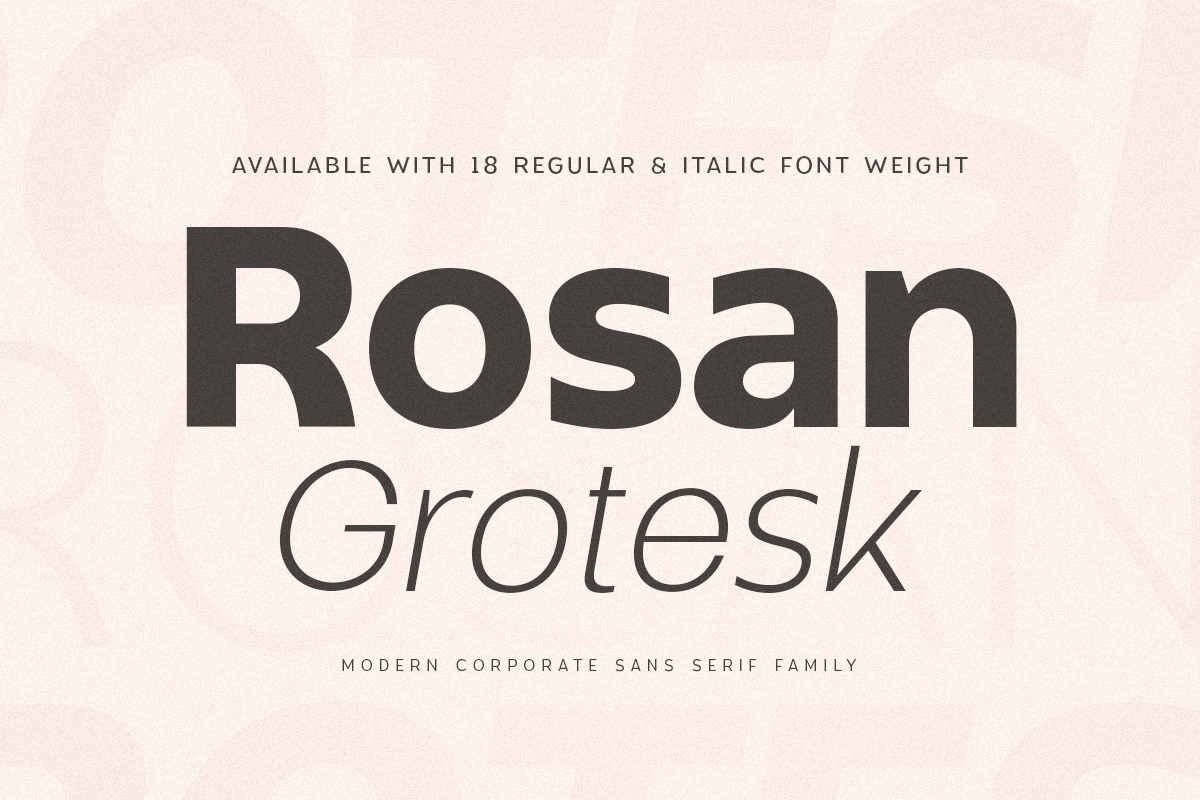
Rosan Grotesk - Modern Humanist Font
Rosan Grotesk delivers modern humanist elegance with minimalist precision for premium branding and design projects. This well-balanced modern font family combines clean sans serif styling with unique character variations that you can easily customize using alternates to create distinctive shapes in seconds. The minimalist aesthetic makes it perfect for contemporary design applications while maintaining exceptional legibility across all uses. Ideal for branding projects, logo creation, poster des...